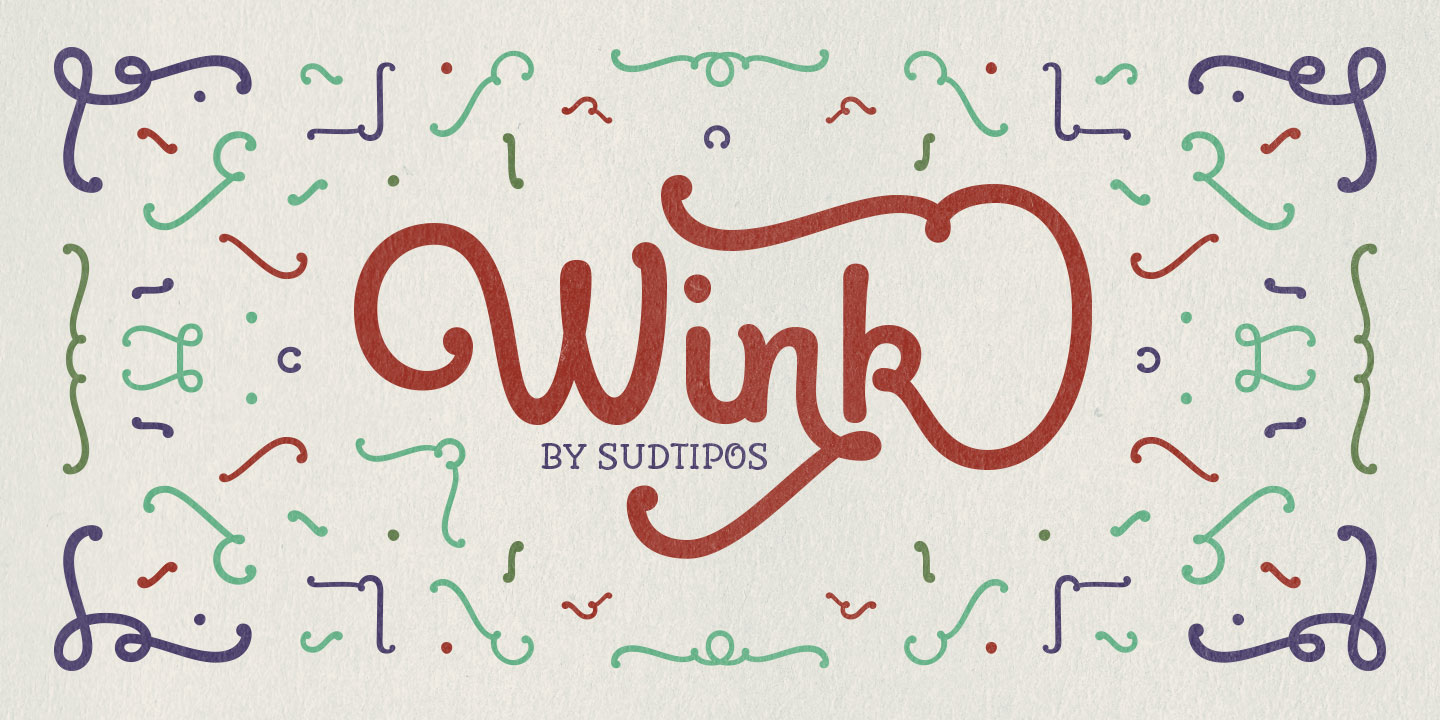
Wink Font is perfect for playful branding, greeting cards, children’s books, social media posts, friendly logos, and any project that needs a warm, approachable vibe.
What makes Wink Font so exciting is its casual, handwritten style with a touch of personality. The smooth curves and friendly letterforms give your designs a natural, inviting feel.
The font family usually includes Regular, Italic, and Bold styles, providing flexibility to match different moods and emphasis.